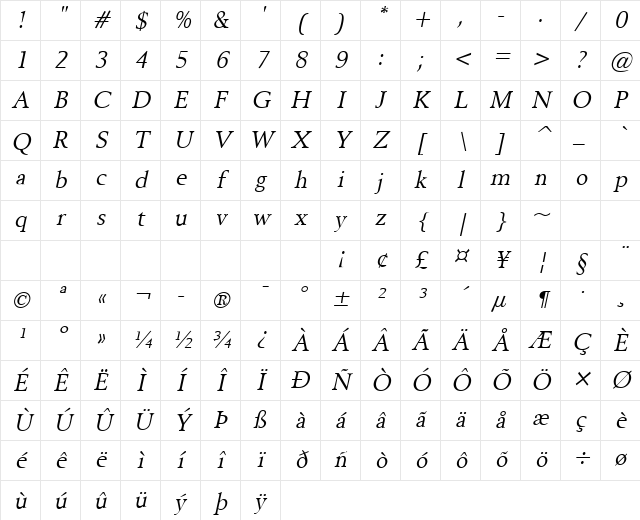
Revive 8 Italic
Revive 8 Family
Revive 8 Italic
Design Context for Revive 8
Revive 8 is a composed and adaptable typeface that performs quietly and consistently across a wide range of design contexts. The slanted form adds forward momentum and visual energy.
Pro Tip: Use Revive 8 for emphasis, pull quotes, and subheadings where its slanted energy can add rhythm to the layout.